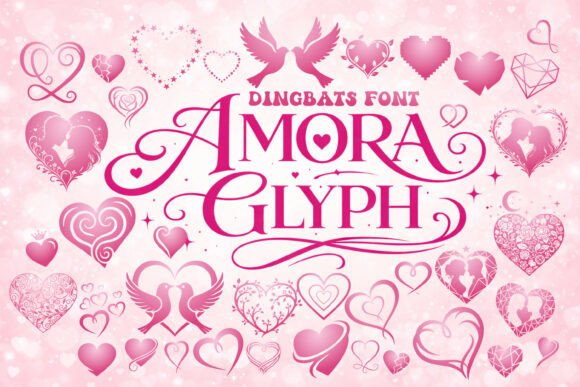
The AmoraGlyph Font: A Romantic Dingbat Delight for Designers
I’ll never forget the time I was working on a Valentine’s Day project for a client, and I just couldn’t find the right font to capture the essence of love and romance. The designs felt flat, and I knew I needed something special. That’s when I stumbled upon the AmoraGlyph font, and it completely transformed my project. In this article, I’ll share my experience with this beautiful font, its features, and how you can make the most of it in your designs.
What is AmoraGlyph?
AmoraGlyph is a romantic dingbats font that features elegant silhouette symbols inspired by love, devotion, and timeless affection. Designed with graceful curves and balanced forms, this font is perfect for Valentine’s Day designs, wedding invitations, engagement cards, anniversary projects, and romantic branding.
The font includes a wide range of glyphs, such as hearts, couples, flowers, rings, kisses, and symbolic ornaments, all presented in clean, artistic silhouettes. These elements make it an excellent choice for decorative elements, logos, frames, patterns, and visual accents that elevate emotional storytelling.
• ✨ Elegant and sophisticated design
• ✅ Wide range of glyphs and symbols
• 💕 Perfect for romantic and love-themed designs
• 🎉 Easy to use and works well with various design software
⚠️ One thing to note is that the font might not work well with very small font sizes, as some details might get lost. Also, 🤔 it would be great to have more variations of certain glyphs, but overall, the font is quite comprehensive.
The Story Behind AmoraGlyph
AmoraGlyph was designed with love and care by a team of passionate designers who wanted to create a font that captures the essence of romance and affection. The designers drew inspiration from classic love symbols, elegant typography, and timeless illustrations to create a font that would make any design feel special.
Q: What is AmoraGlyph?
A: AmoraGlyph is a romantic dingbats font featuring elegant silhouette symbols inspired by love, devotion, and timeless affection.
Q: What can I use AmoraGlyph for?
A: AmoraGlyph is perfect for Valentine’s Day designs, wedding invitations, engagement cards, anniversary projects, romantic branding, and more.
Q: Does AmoraGlyph support OpenType features?
A: Yes, AmoraGlyph supports OpenType features and glyphs, making it easy to use in various design software.
Conclusion
AmoraGlyph is a beautiful, romantic dingbats font that can elevate any design with its elegant silhouette symbols. With its wide range of glyphs, ease of use, and compatibility with various design software, it’s an excellent choice for designers, crafters, and creative hobbyists. Whether you’re working on a wedding invitation, Valentine’s Day project, or romantic branding, AmoraGlyph is sure to bring warmth, elegance, and intimacy to your designs.